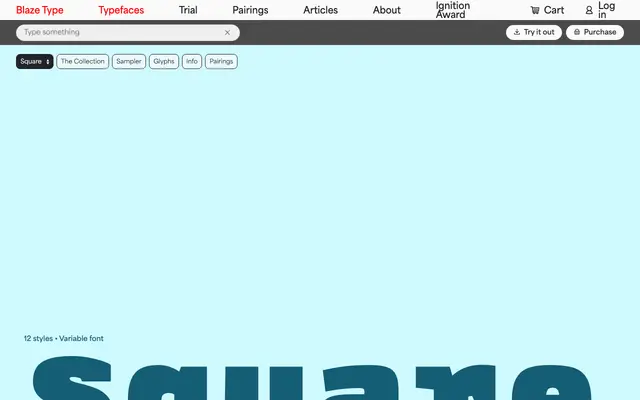
Square
A monospaced geometric typeface by Raphaël Lefeuvre in which every glyph is constructed within an equal square, allowing vertical and horizontal reading and enabling optical layering across its 12 weights.
Designed around the conceptual constraint of a perfect square, the letterforms fill and empty from the inside as weights increase from UltraThin to Heavy, while maintaining the same outer contour throughout. Lefeuvre describes the lightest weight as tracing a park's perimeter, with heavier weights filling its surface inward. The fixed-pitch grid structure allows glyphs to be superimposed across weights, making it well suited to layered or animated display work.
Square is explicitly a monospaced font in which every glyph is constructed within a square grid, with geometric forms and consistent spacing across all weights. Its fixed-pitch, grid-based construction firmly places it in the mono category.